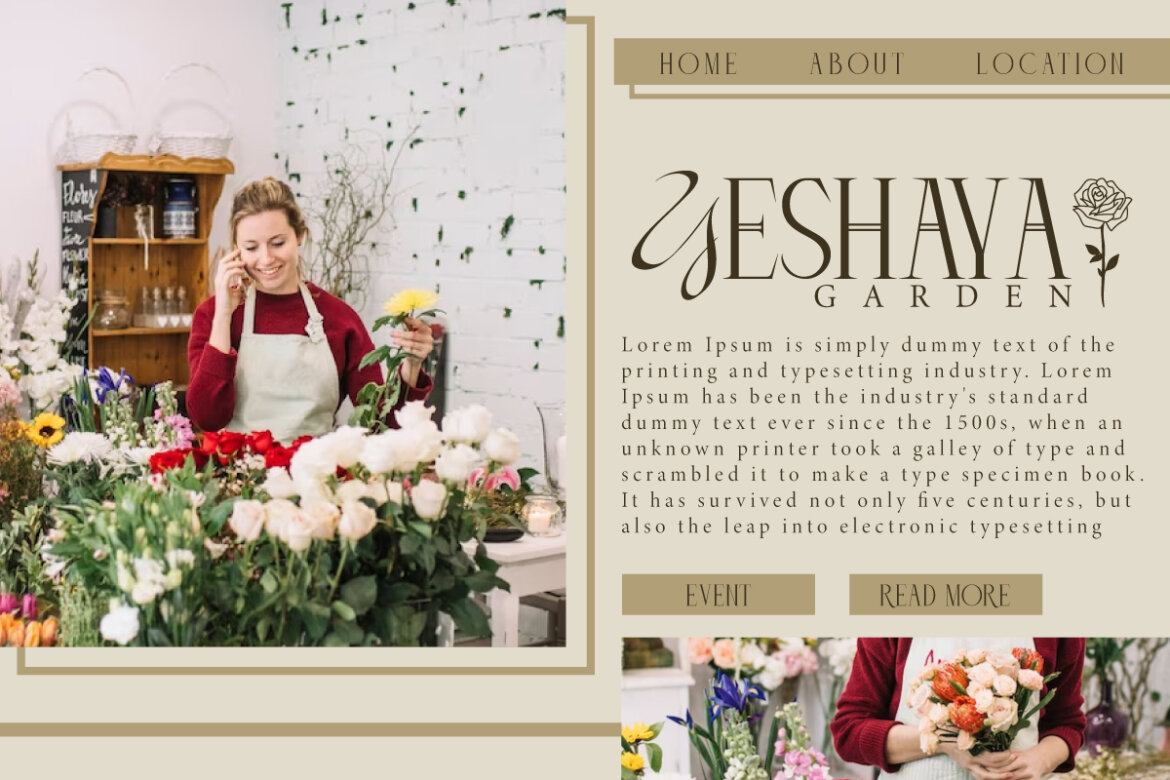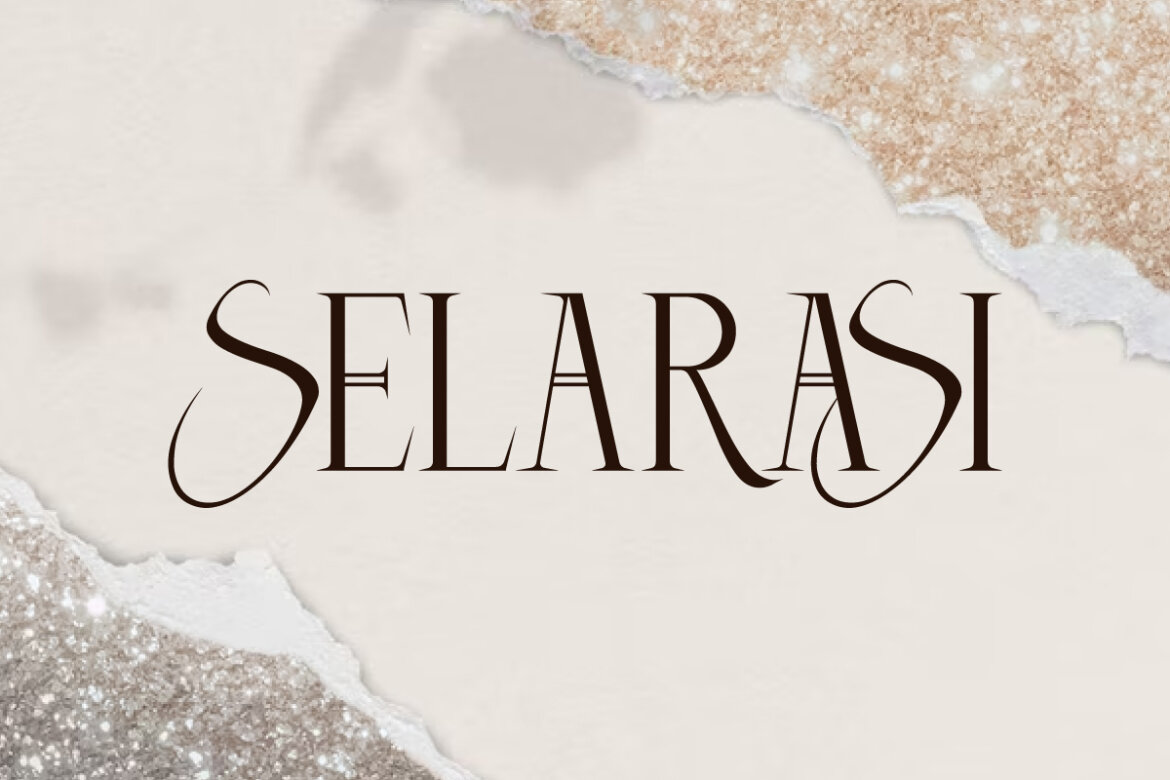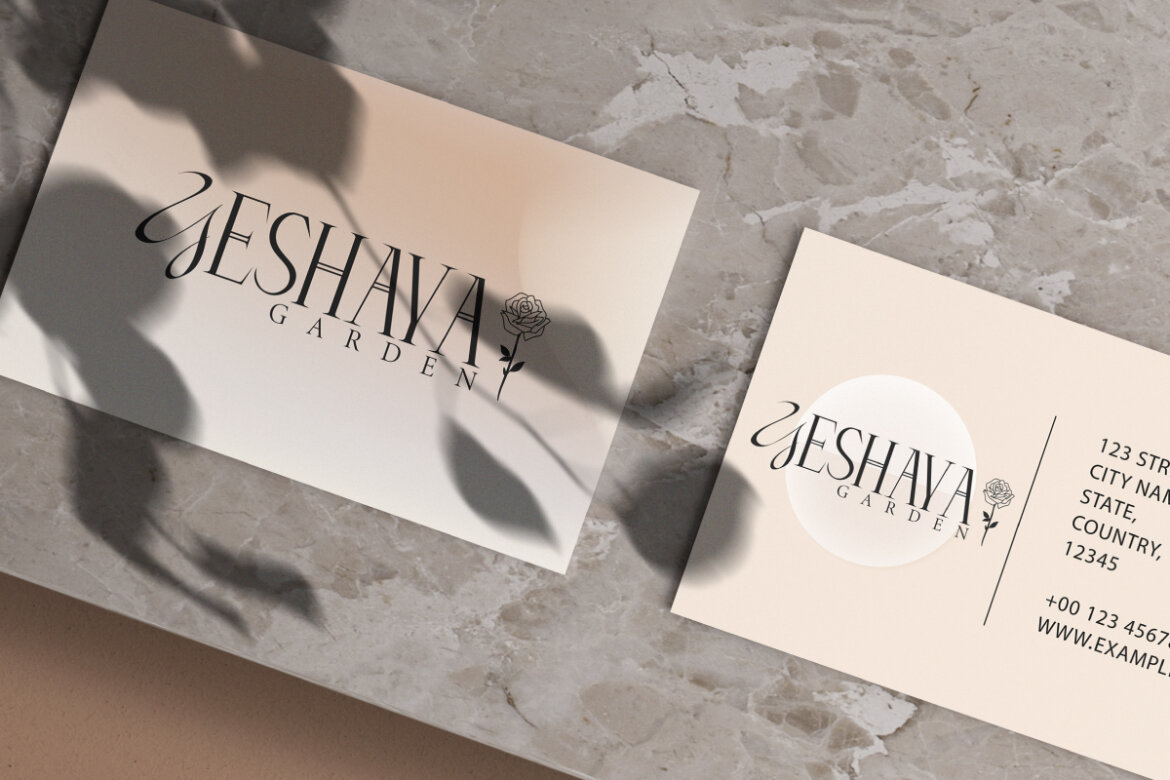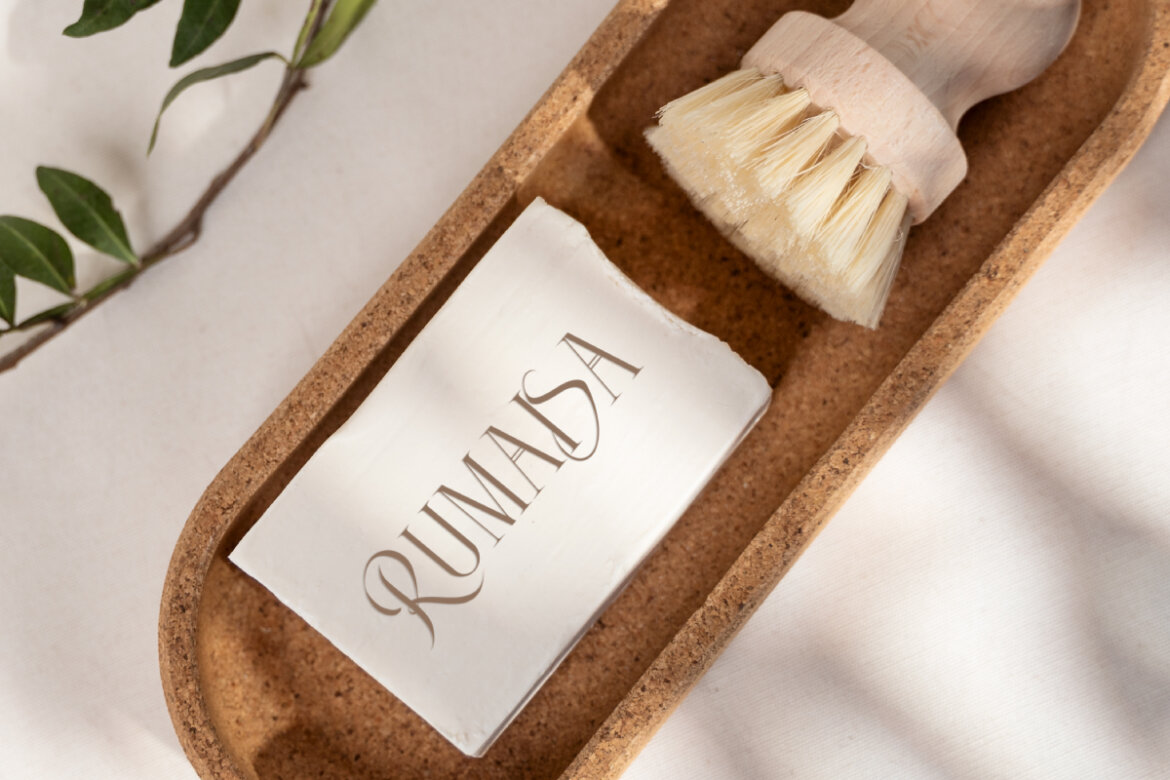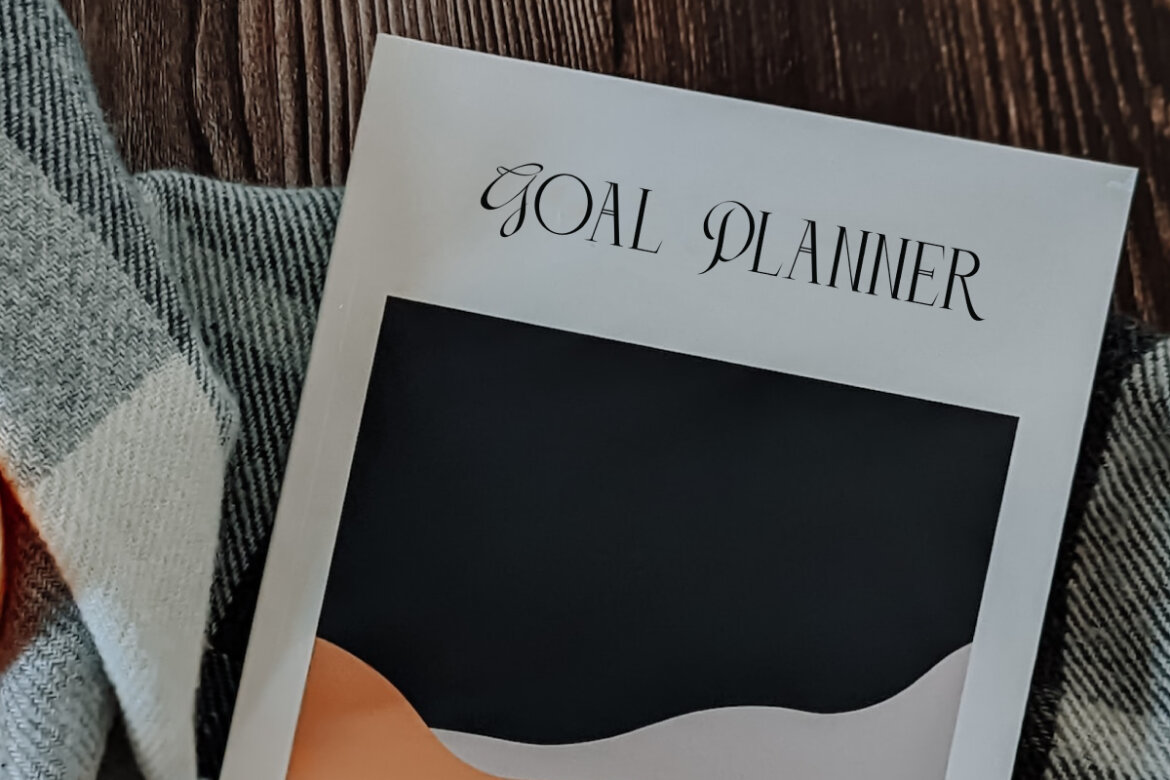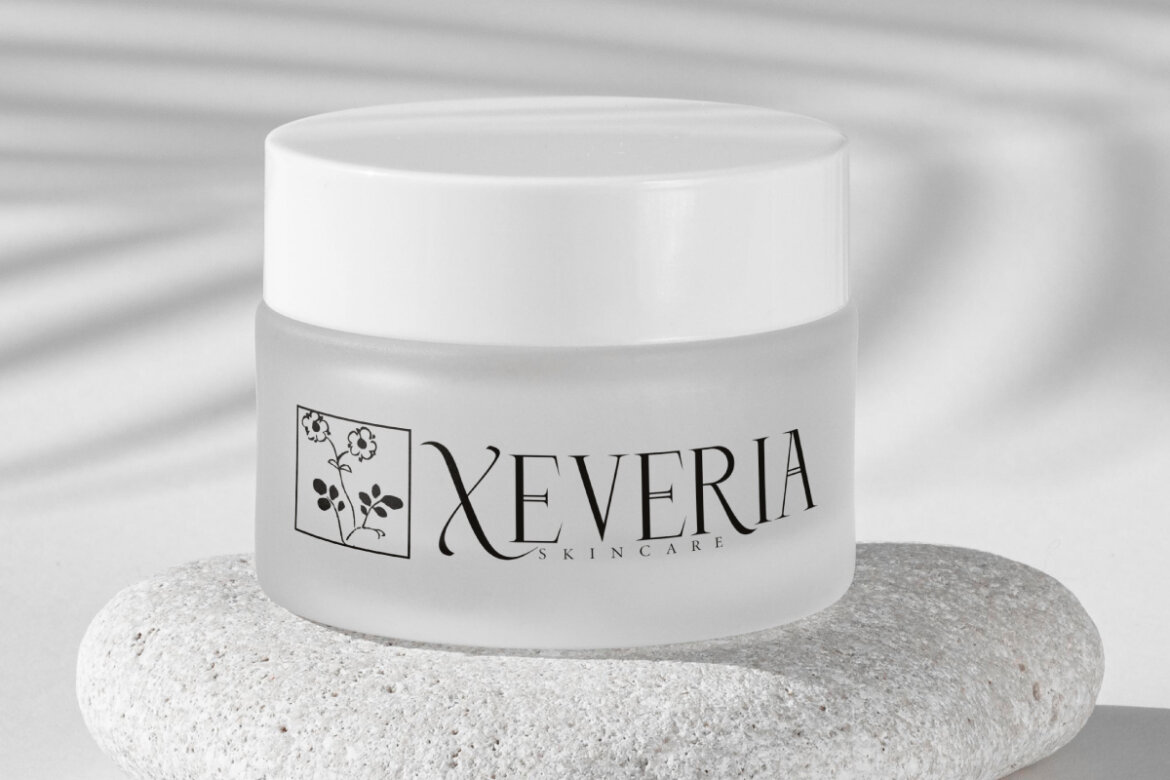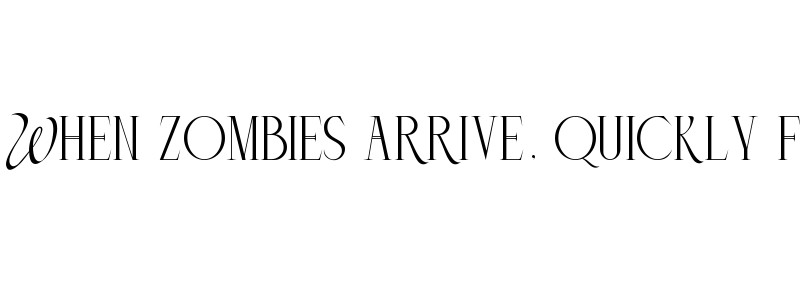
Selarasi FREE Font
Selarasi
Selarasi Font is an elegant luxurious font that offers a fashionable look with a light and versatile style. The base of the letters is like a minimalist serif with other options given a beautiful curved style. This unique font will be perfect for brochure, cards, creating logos, mockup, social media post, stationery, sticker, stunning magazine designs, title, watermark, web, and more.
Selarasi Font includes a full set of Basic Uppercase and Lowercase Characters in Large sizes for both, Numbers, Punctuation and Symbols. The letter’s modern and chic proportions make it perfect for anything. This font is suitable for businesses such as, accessories, beauty skin clinic, clothing brand, cosmetic, craft, fashion, florist, furniture, makeup, skincare, spa salon, and others.